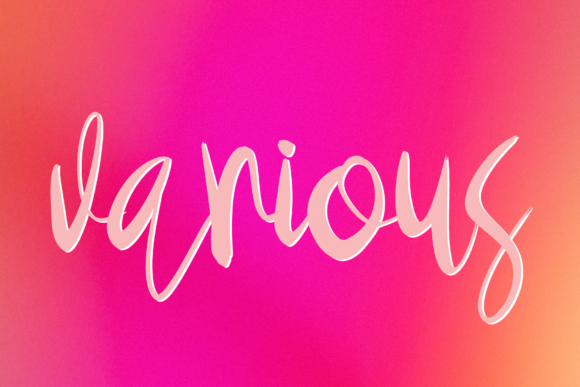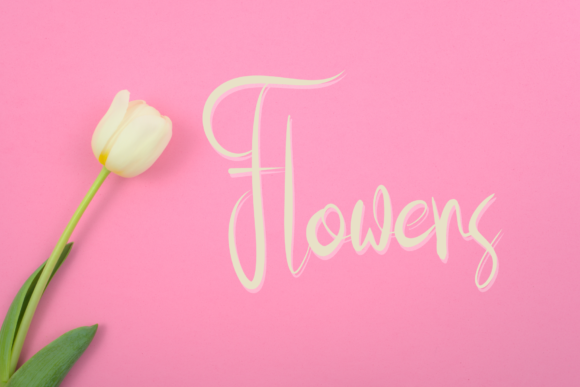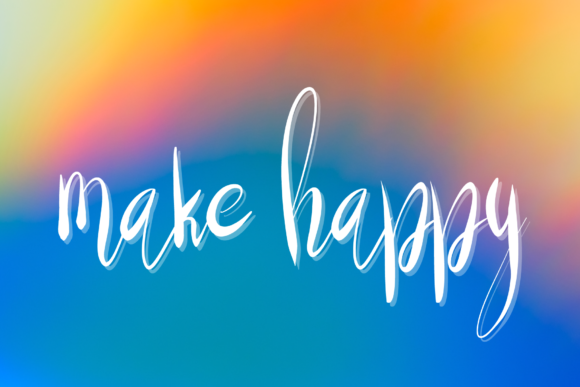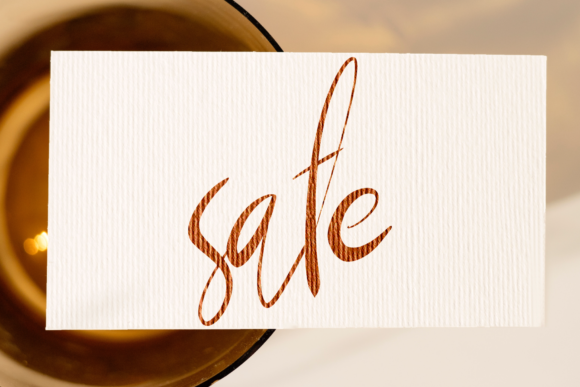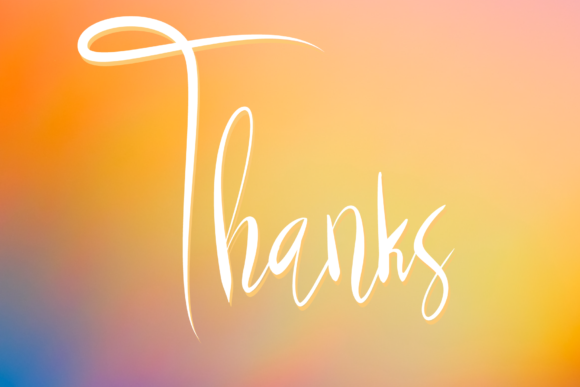
Faster Font
About Faster Font
Faster is a flowing and delicate handwritten font that embodies charm and elegance in every character. Use it for projects that need lovely, romantic typography!